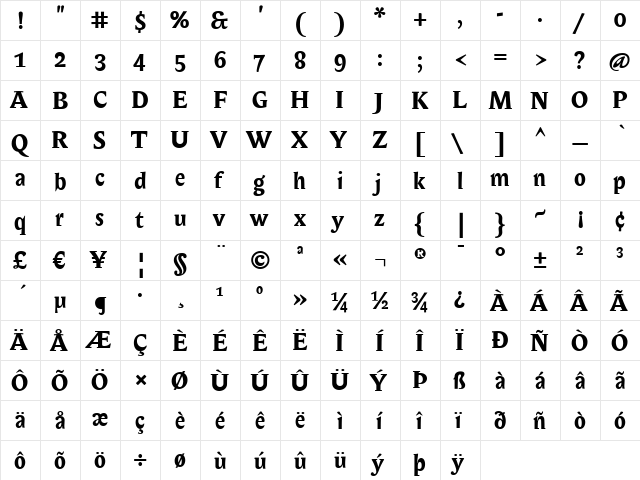
Biblon Bold
Design Context for Biblon Typeface
Biblon offers clean, dependable letterforms without strong stylistic allegiance, making it a practical choice for designers who need flexibility. The heavy weight commands attention and anchors typographic hierarchies.